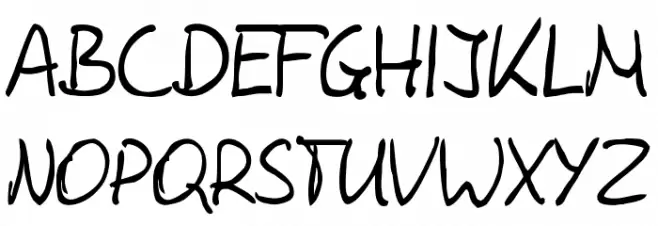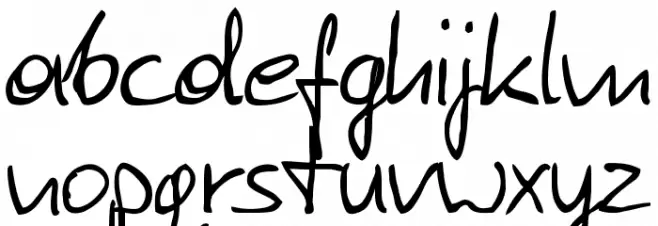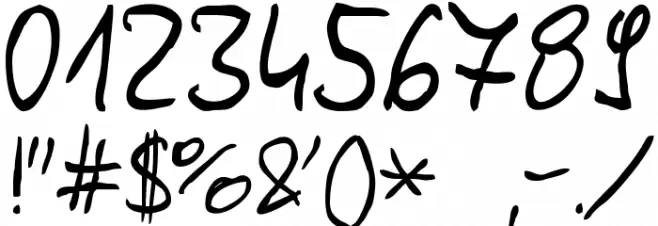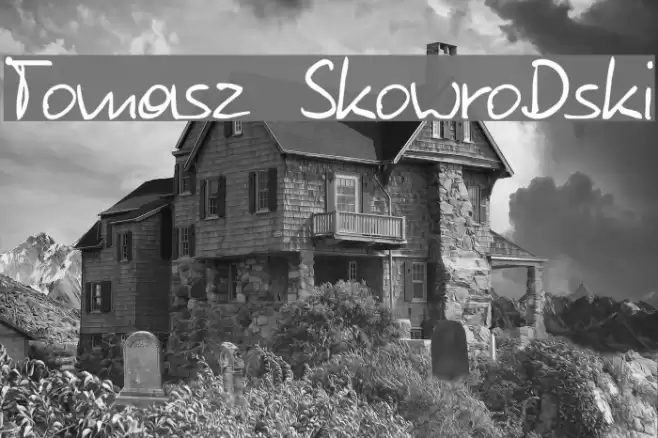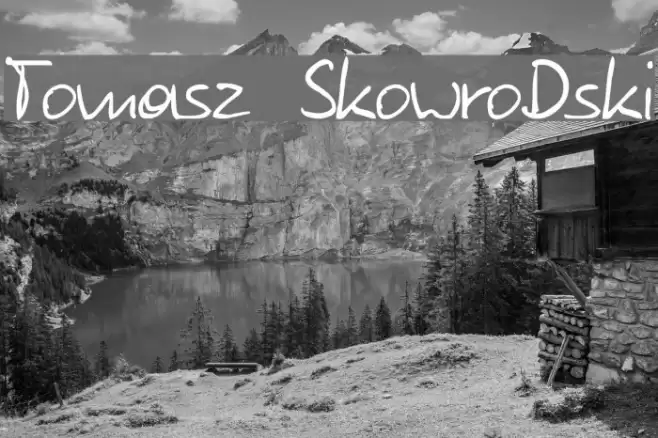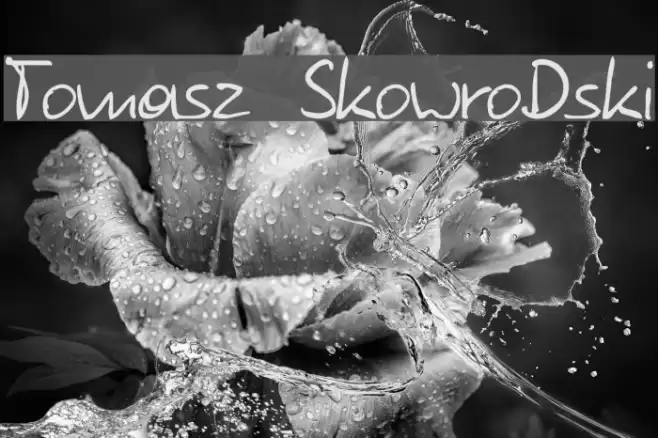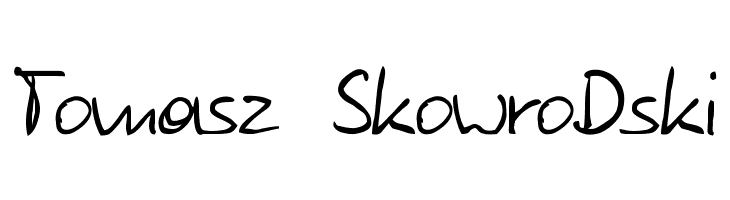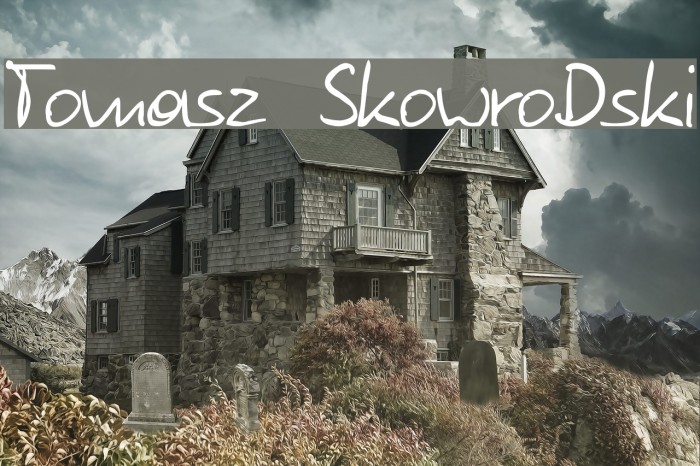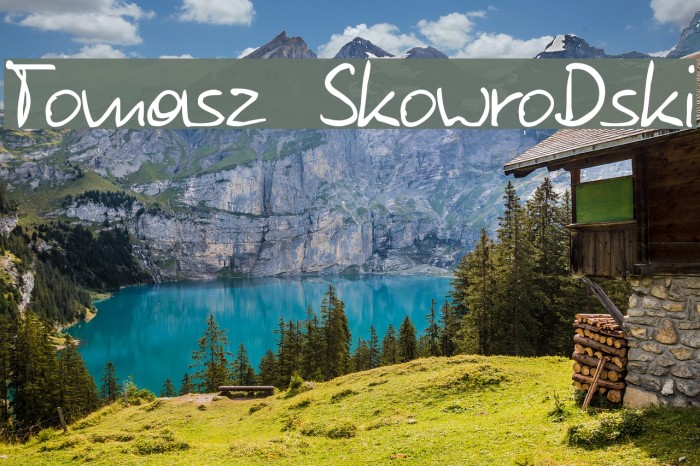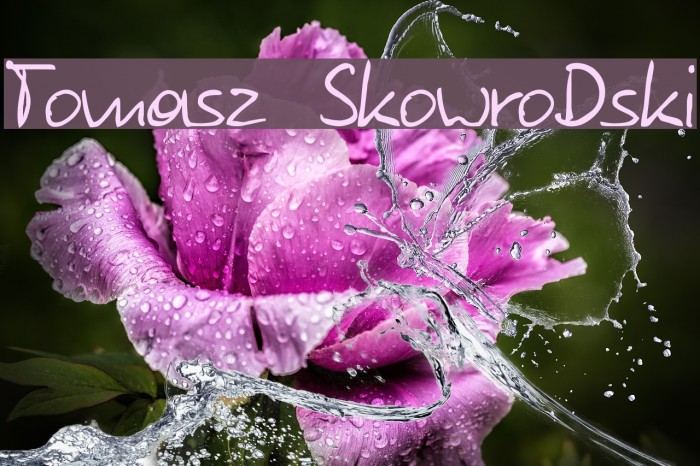
Tomasz SkowroDski
This font exudes a lively and dynamic handwritten style, characterized by its fluid and slightly irregular strokes. The uppercase letters are bold and expressive, with a playful yet sophisticated flair. The lowercase letters maintain a consistent flow, enhancing the font's overall legibility despite its casual appearance. Numbers and special characters are crafted with the same energetic style, making them stand out while remaining cohesive with the rest of the font. This font's unique personality makes it ideal for projects that require a personal touch, such as invitations, greeting cards, or creative branding.
A lively handwritten font with fluid, expressive strokes.
- Overall Style: Decorative